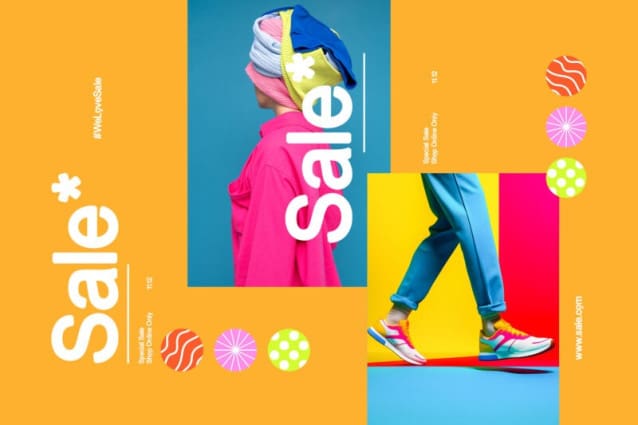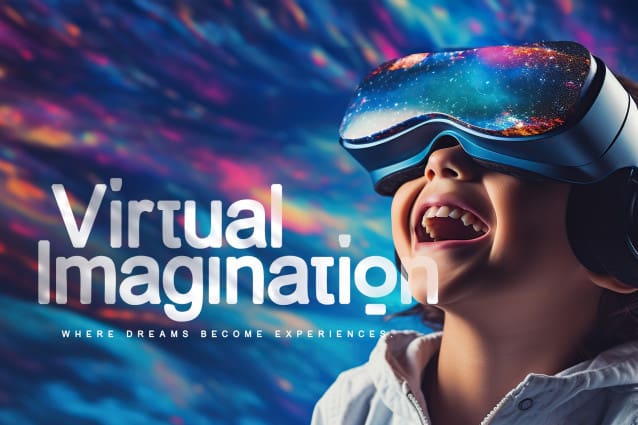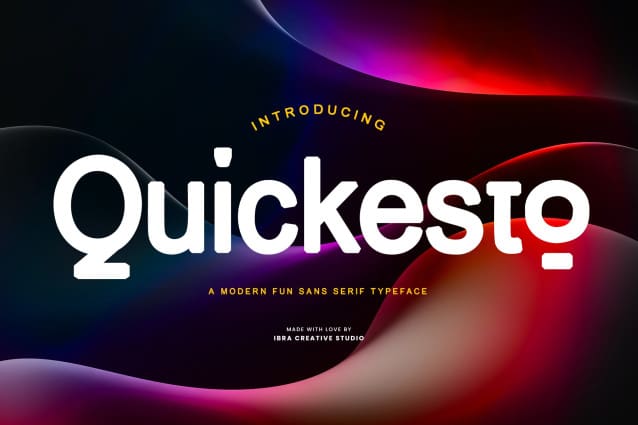
Quickesto Font
Quickesto Font is a contemporary sans-serif typeface that exudes a playful and dynamic essence, perfectly blending modernity with a touch of classic charm. Its distinguishing feature lies in the chamfered edges, which lend a unique and inviting character to the letterforms. The sharp yet rounded corners give Quickesto a distinctive, eye-catching appearance, making it an ideal choice for a wide range of design applications, from branding and advertising to digital interfaces and print materials. With its versatility and aesthetic appeal, Quickesto effortlessly captures the spirit of contemporary design while offering a refreshing departure from traditional sans-serif fonts.